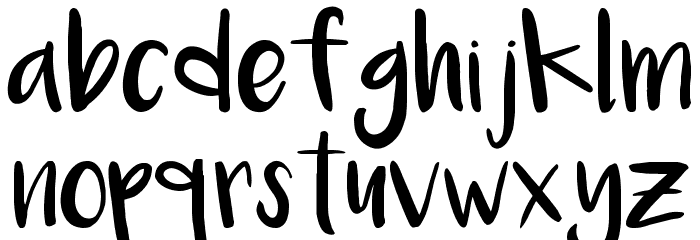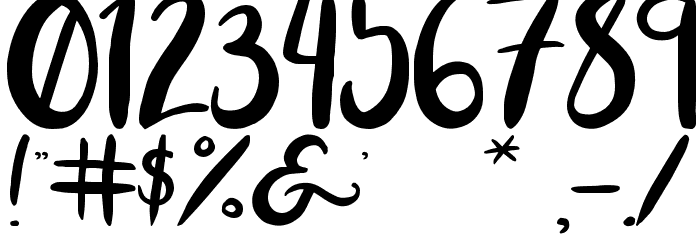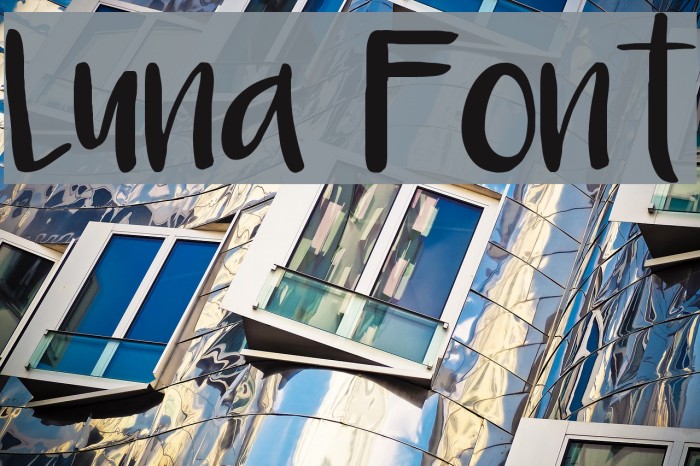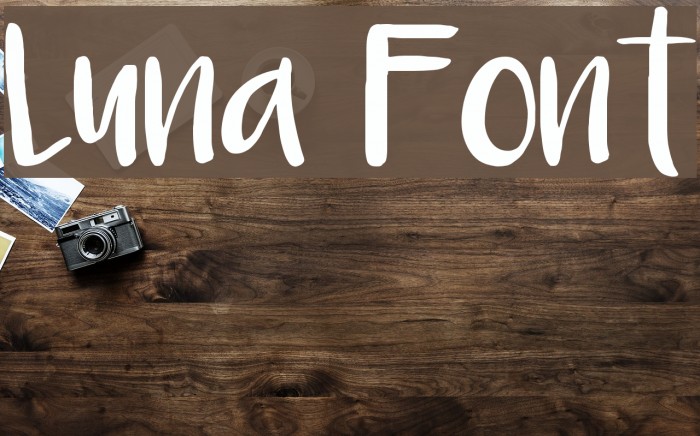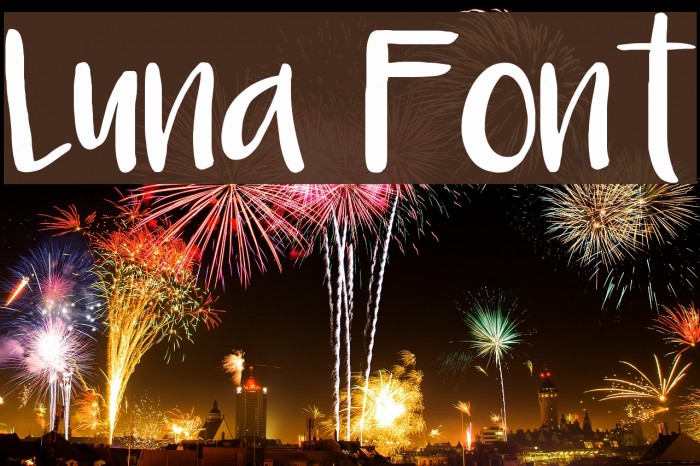
Luna Font
This font features a playful and casual handwritten style, characterized by its bold and expressive strokes. The letters have a slightly irregular baseline, adding to the informal and friendly appearance. The uppercase and lowercase letters maintain a consistent style, with rounded edges and a smooth flow. The numerals are bold and easily readable, complementing the overall design. Special characters are creatively styled, enhancing the font's versatility for various design projects. The font's energetic and lively nature makes it suitable for creative and informal applications.
A bold, playful handwritten font with expressive strokes and a casual style.
- Proposed Projects: Ideal for greeting cards, children's books, playful branding, and social media graphics.
- Overall Style: Playful